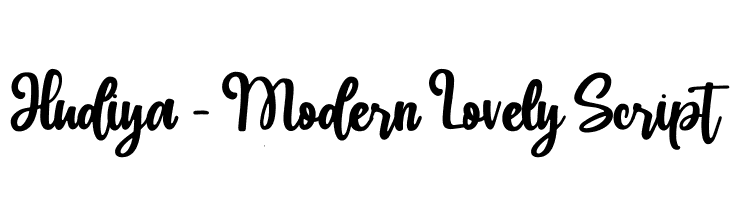
A modern script font with elegant, flowing cursive strokes.
An elegant, flowing script font with a handwritten style.
A cursive, handwritten style font with elegant, flowing strokes.
A playful, cursive font with dynamic curves and artistic flair.
A graceful script font with elegant swirls and high contrast strokes.
A playful and elegant handwritten font with smooth, flowing lines.